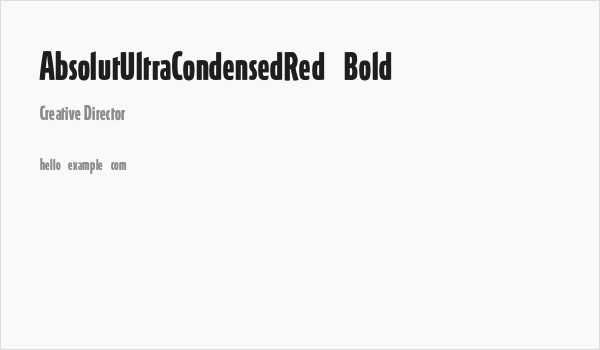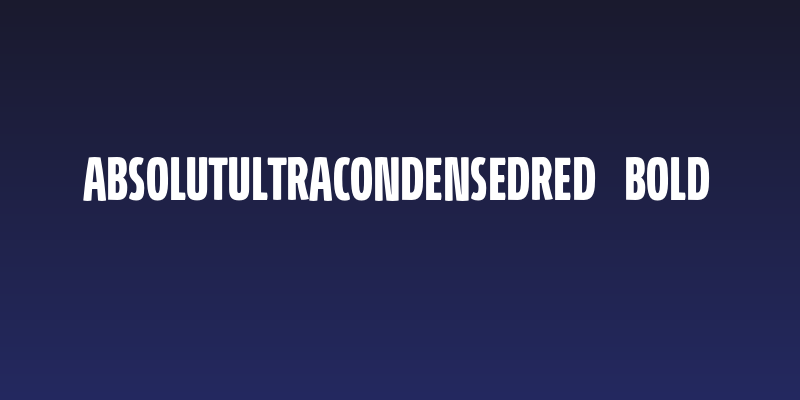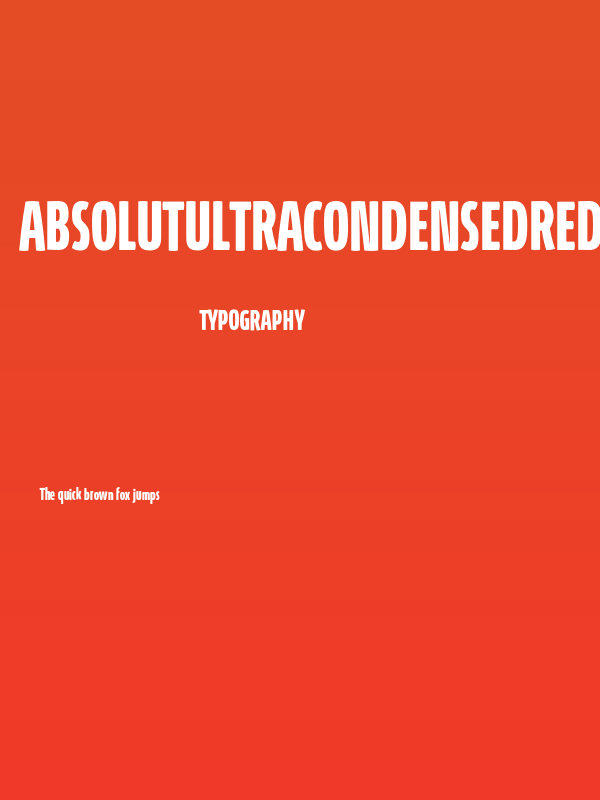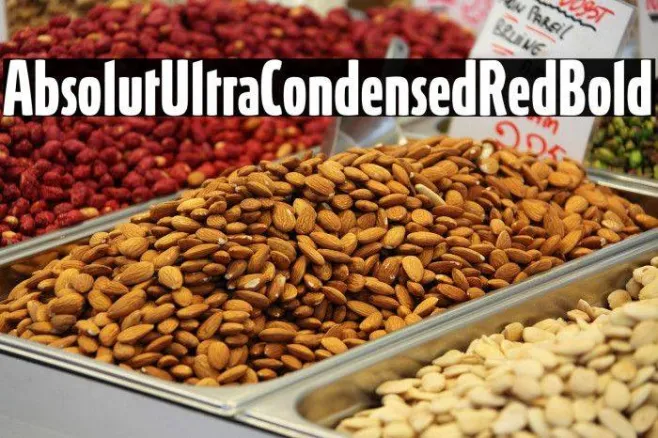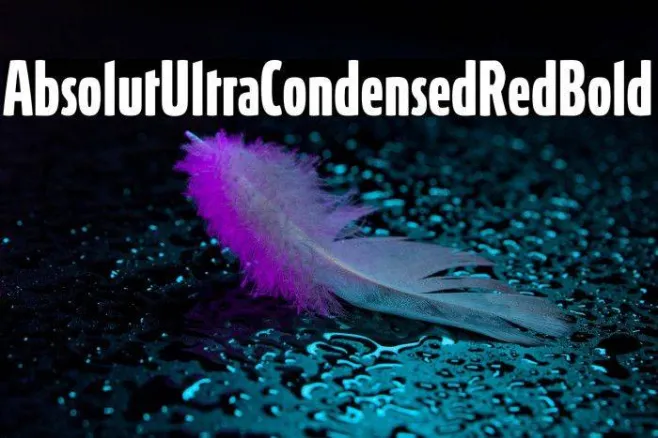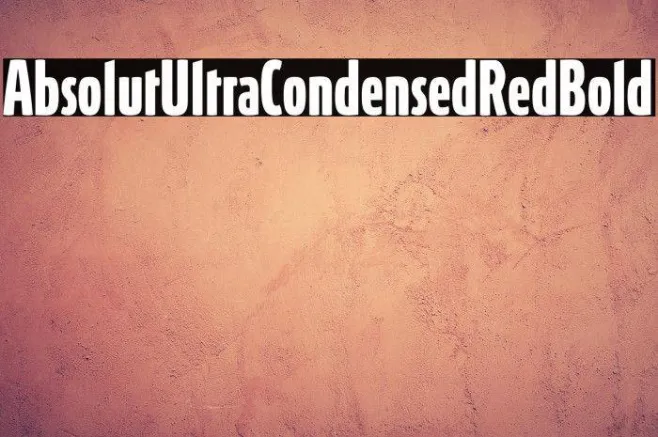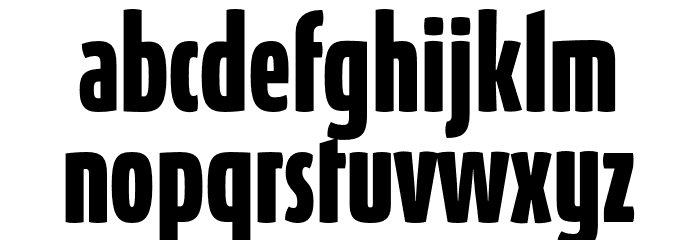
AbsolutUltraCondensedRed-Bold Font
AbsolutUltraCondensedRed-Bold Description
This font features a bold and ultra-condensed style, characterized by its thick strokes and minimal spacing between characters. The uppercase letters are tall and imposing, while the lowercase letters maintain a consistent height, enhancing readability. The font's design is modern and impactful, making it suitable for attention-grabbing headlines and titles. Its strong presence is further emphasized by the uniformity in stroke width, providing a clean and structured appearance. The lack of serifs and the condensed nature contribute to a sleek and contemporary look, ideal for modern design projects.
| Font Family | Absolut UltraCondensed Red |
| Proposed Projects | Ideal for headlines, posters, branding, and advertising where a strong visual impact is needed. |